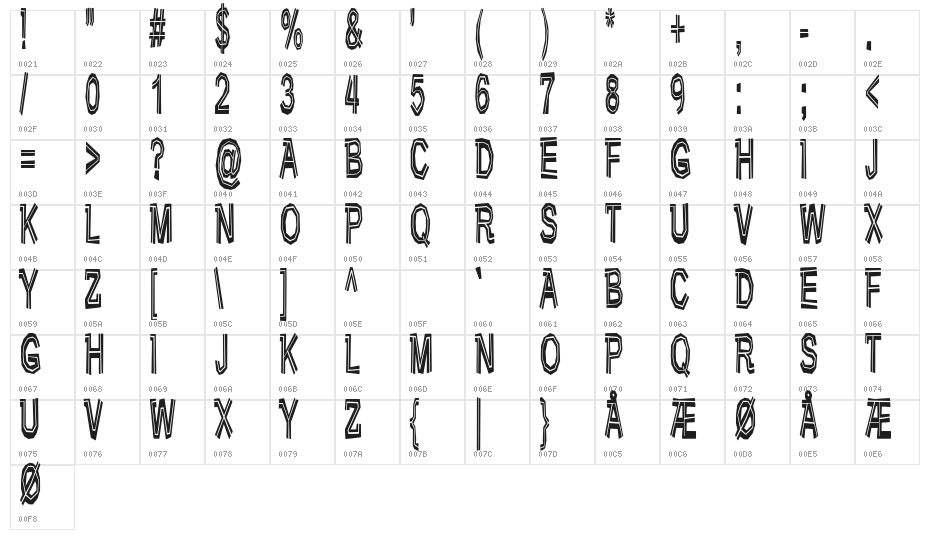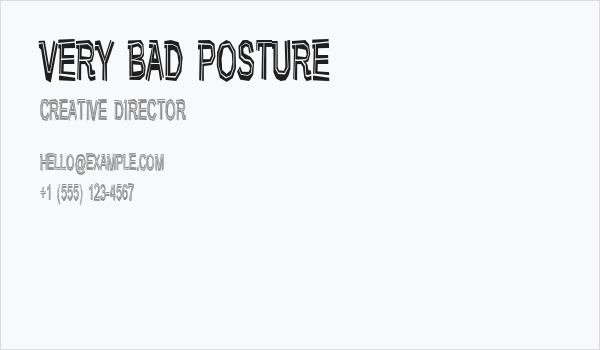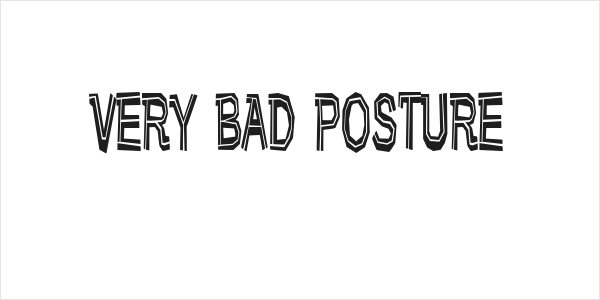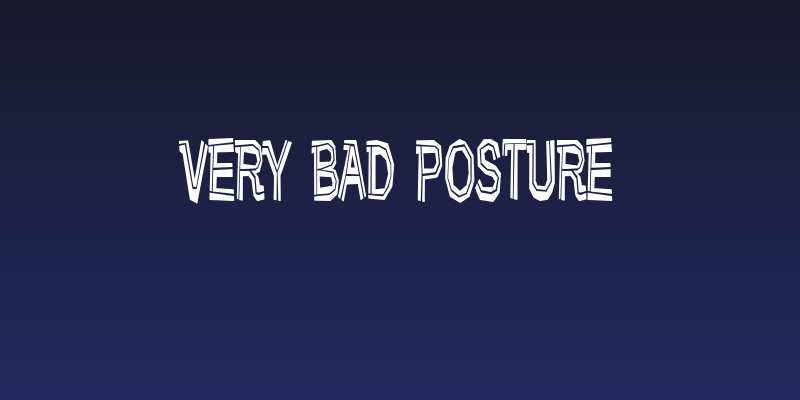
Very bad posture Font
Very bad posture Description
This font features a bold and dynamic style with a three-dimensional effect that gives each character a sense of depth and movement. The uppercase and lowercase letters are designed with sharp angles and a slightly condensed form, creating a striking visual impact. The numerals and special characters maintain this bold, angular design, ensuring consistency across all glyphs. The font's unique style makes it particularly suitable for projects that require a modern and edgy aesthetic. Its distinct appearance is ideal for capturing attention and making a statement.
| Proposed Projects | Ideal for posters, album covers, branding, and any project needing a bold, attention-grabbing typeface. |